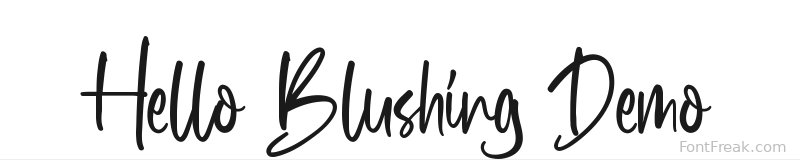
Hello Blushing Demo
About Hello Blushing Demo
The Hello Blushing Demo font by Noah Type is a captivating script typeface that embodies a blend of elegance and playfulness. Characterized by its fluid strokes and charming curves, this handwritten font exudes a warm and inviting atmosphere. Its moderate stroke weight and subtle contrast create a balanced visual appeal, making it suitable for various design projects. The spacing between letters is thoughtfully designed to enhance readability while maintaining a casual, stylish look, perfect for conveying a personal touch.
This versatile font is ideal for several use cases. It's an excellent choice for wedding invitations, where its graceful lines can convey romance and sophistication. Additionally, the Hello Blushing Demo font shines on restaurant menus, adding a touch of personality to each dish listed. Content creators will find it perfect for social media graphics and branding, where an approachable yet polished aesthetic can make a lasting impression. Movie posters can also benefit from its unique character, drawing attention and evoking emotion through its expressive style.